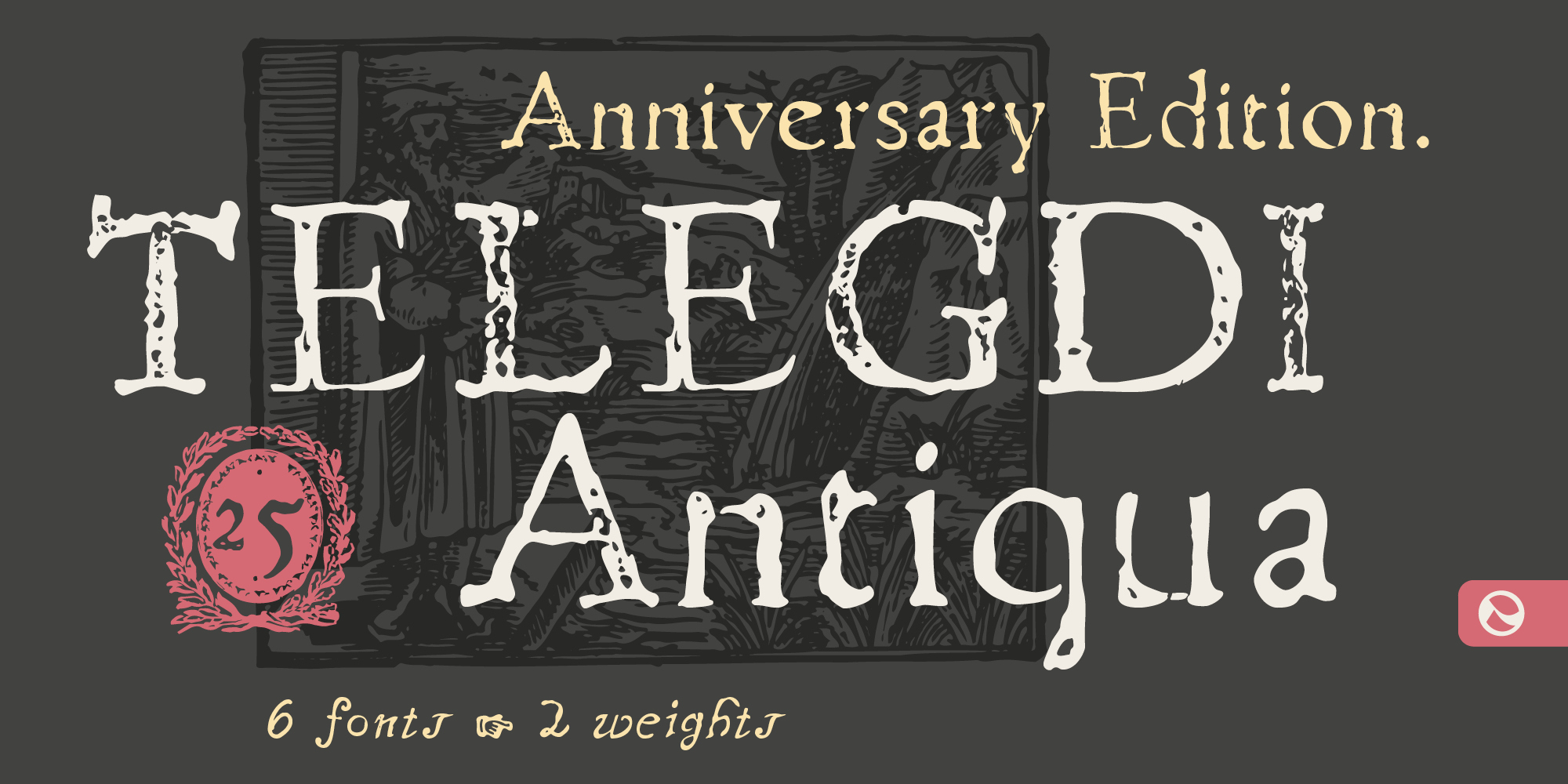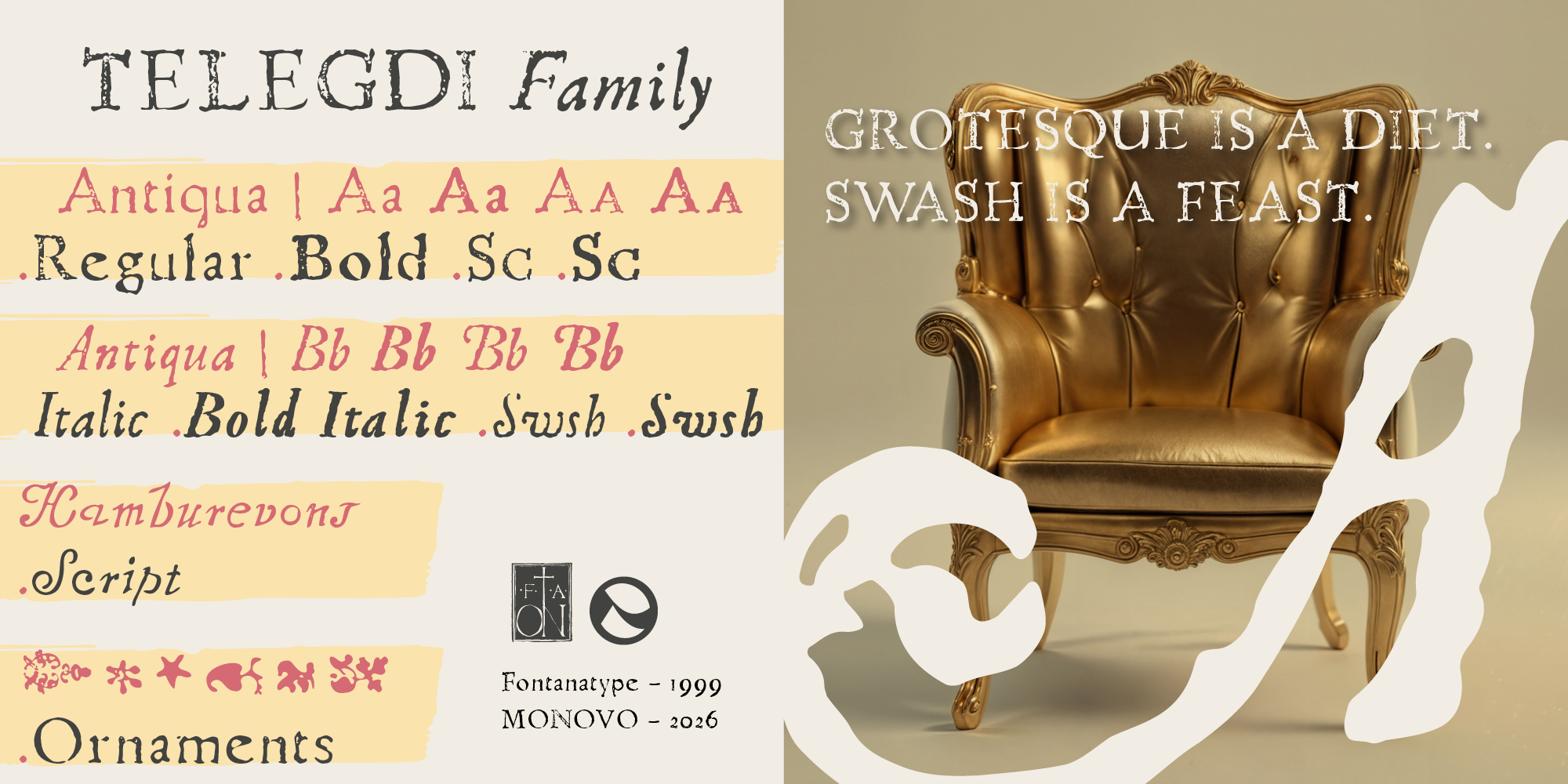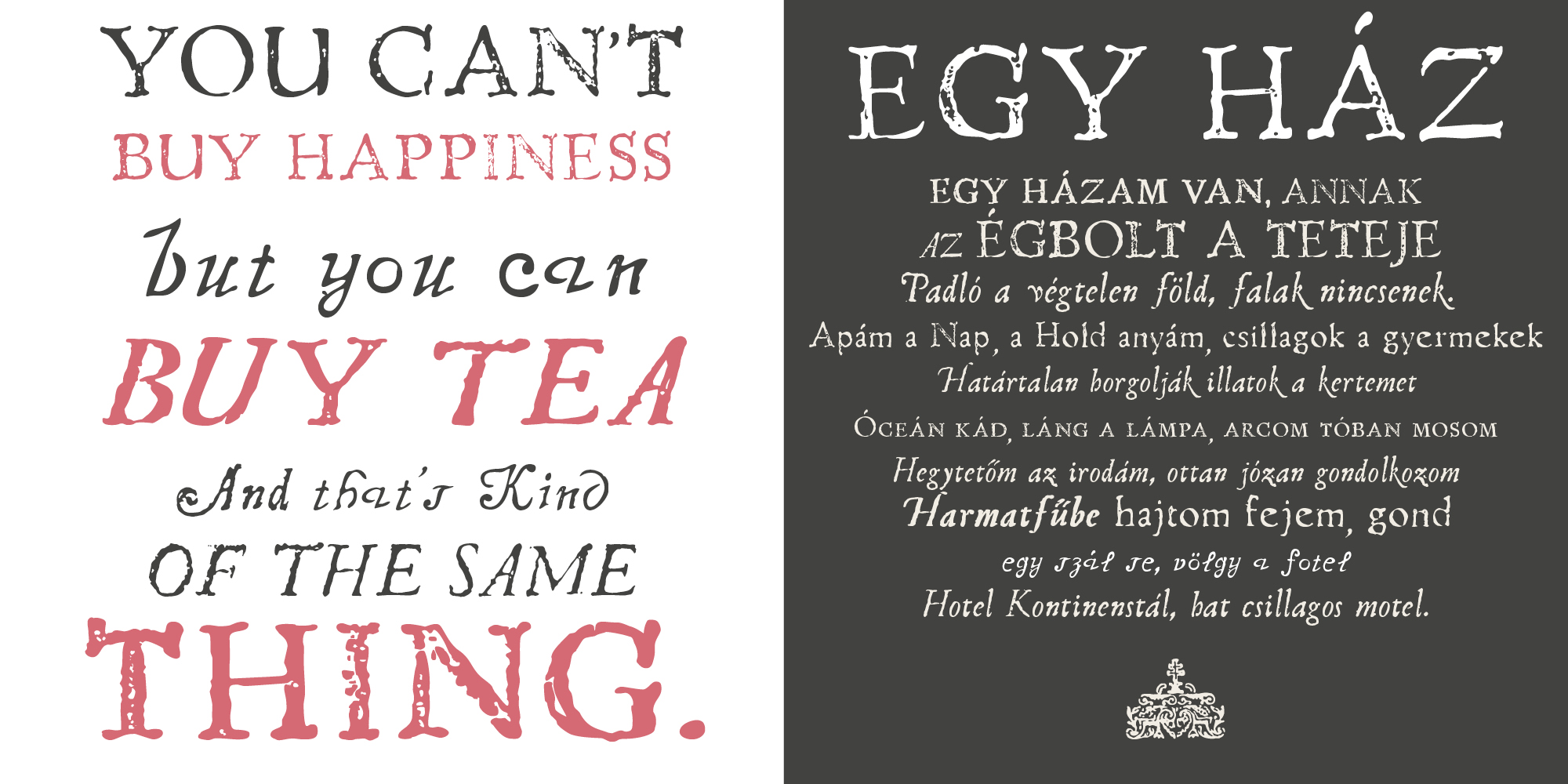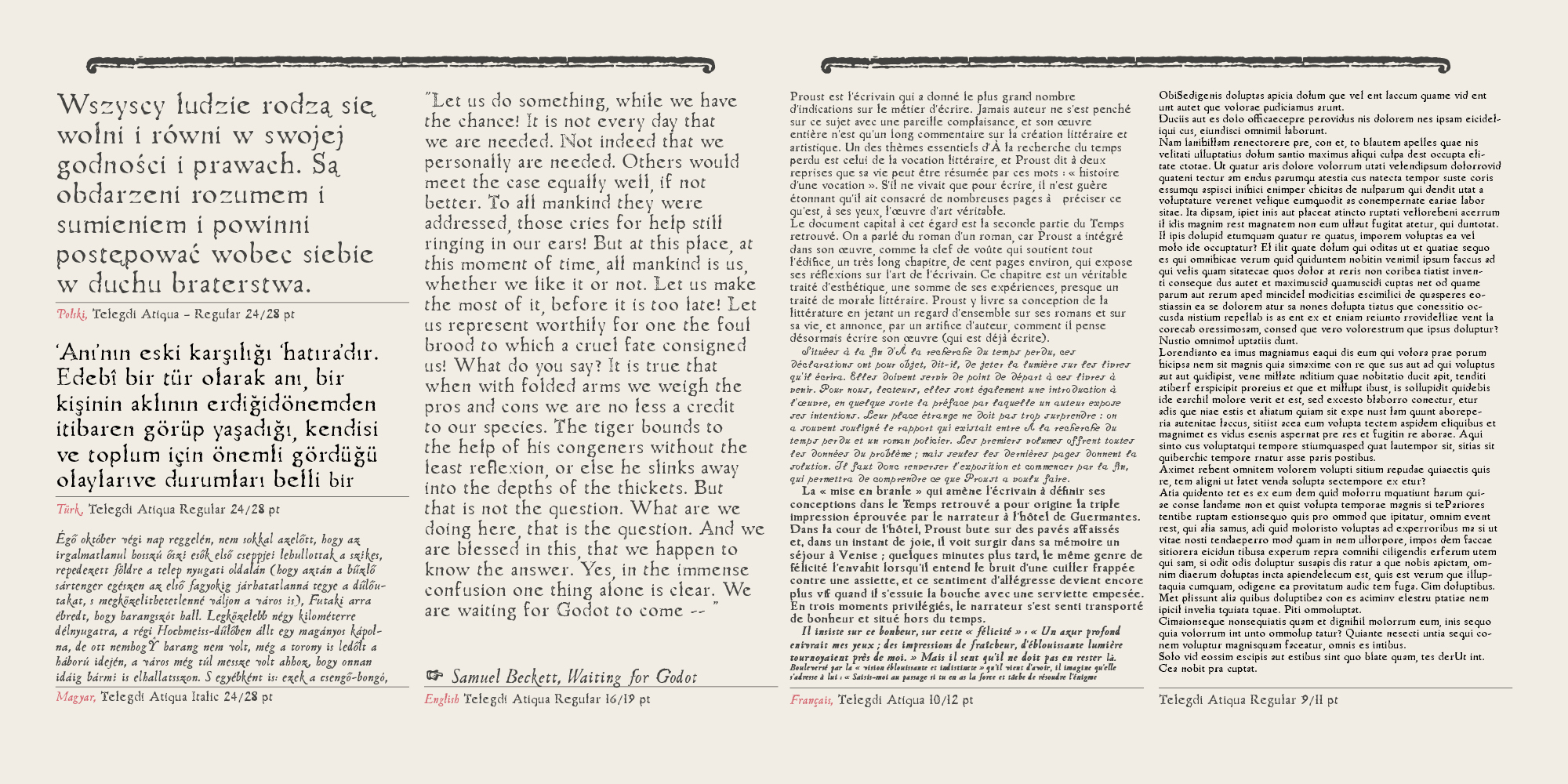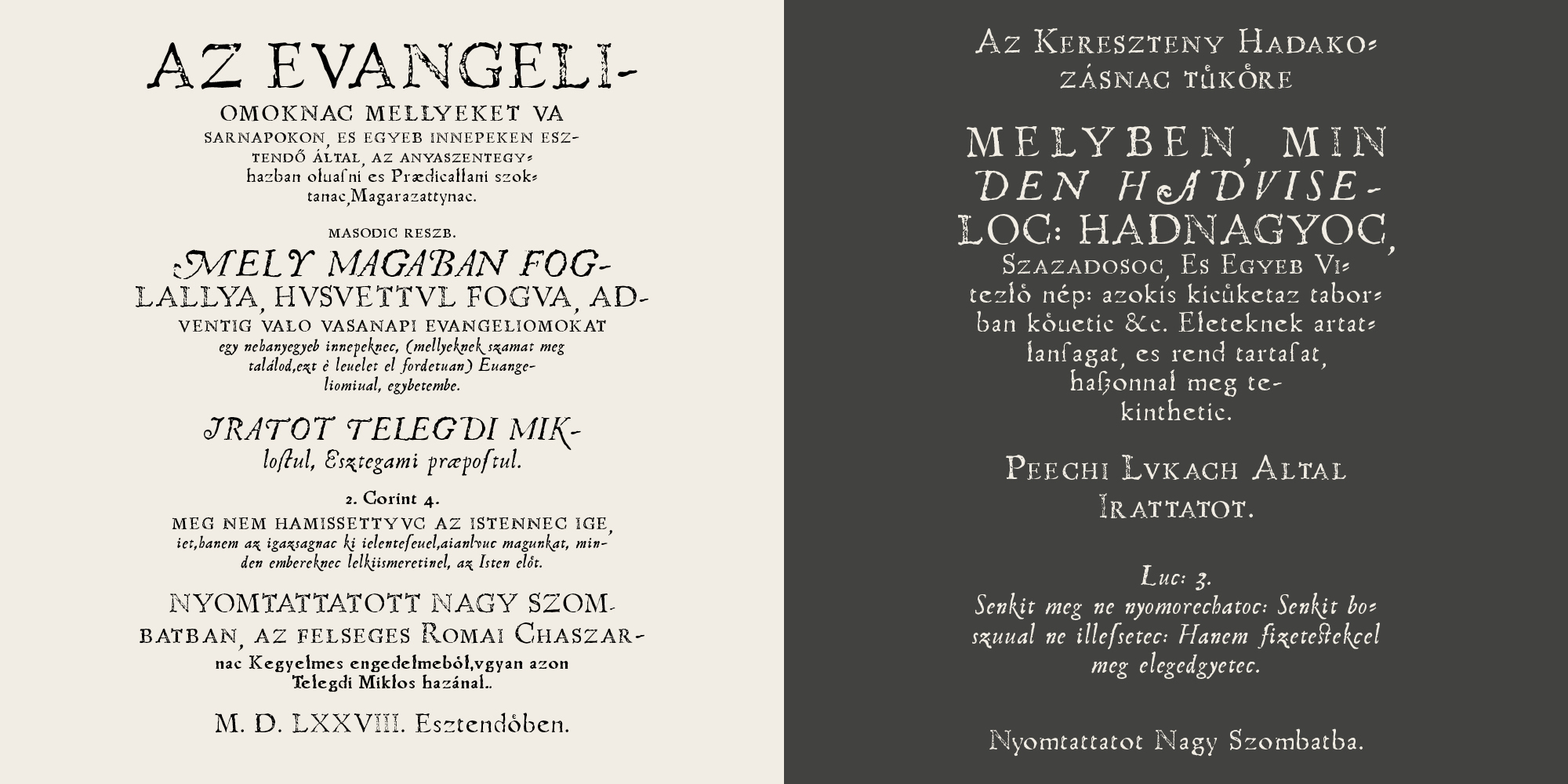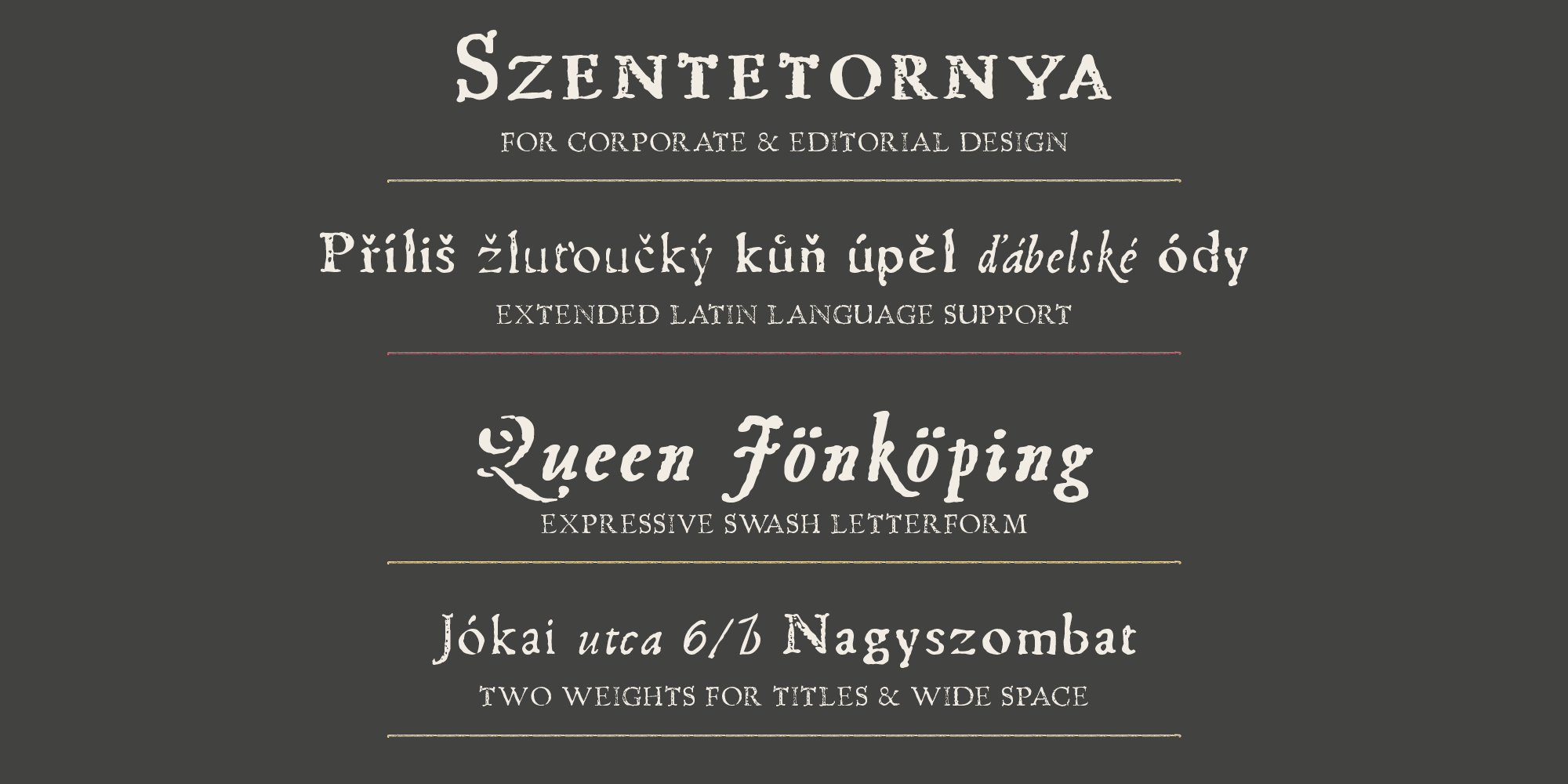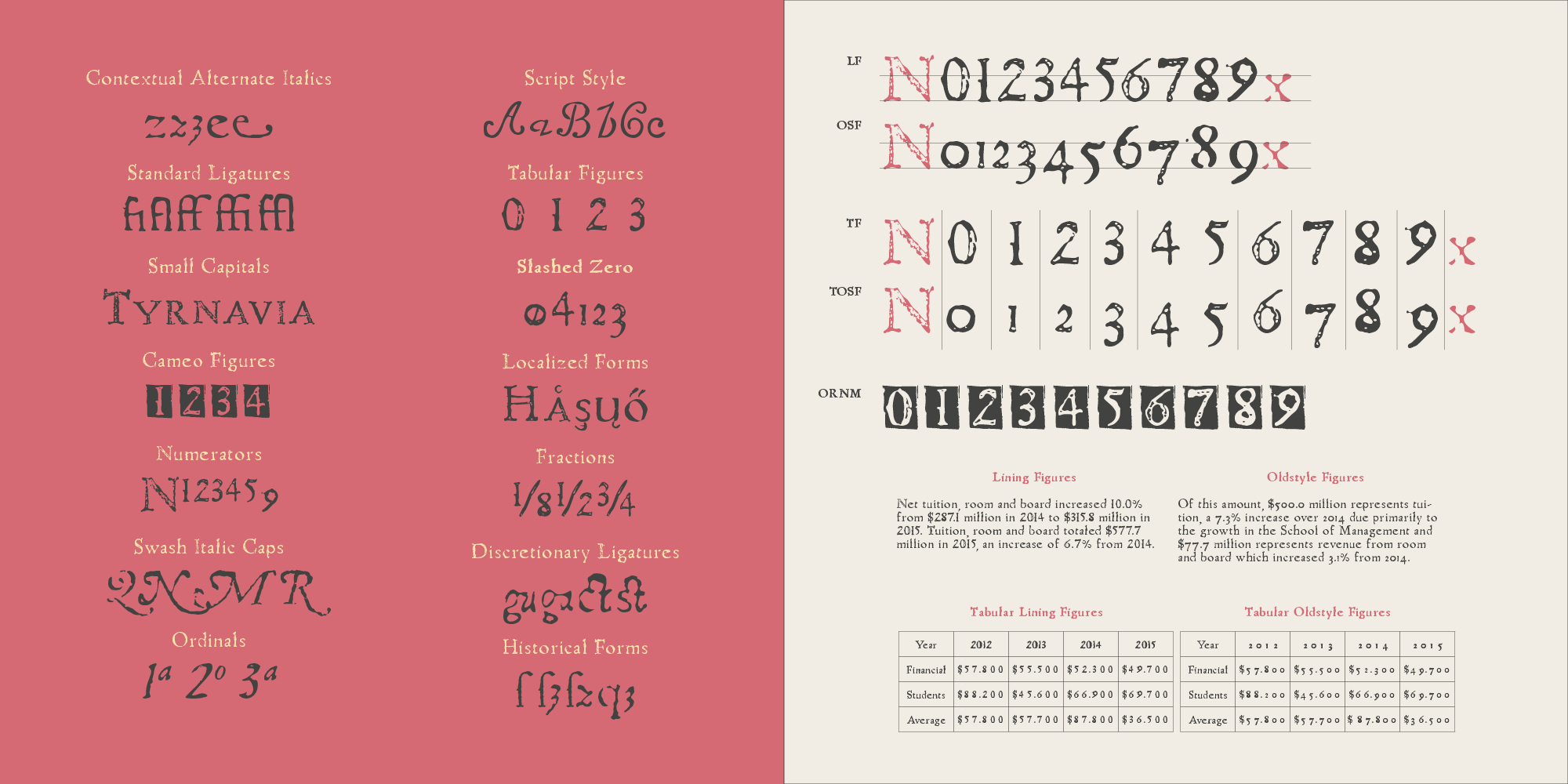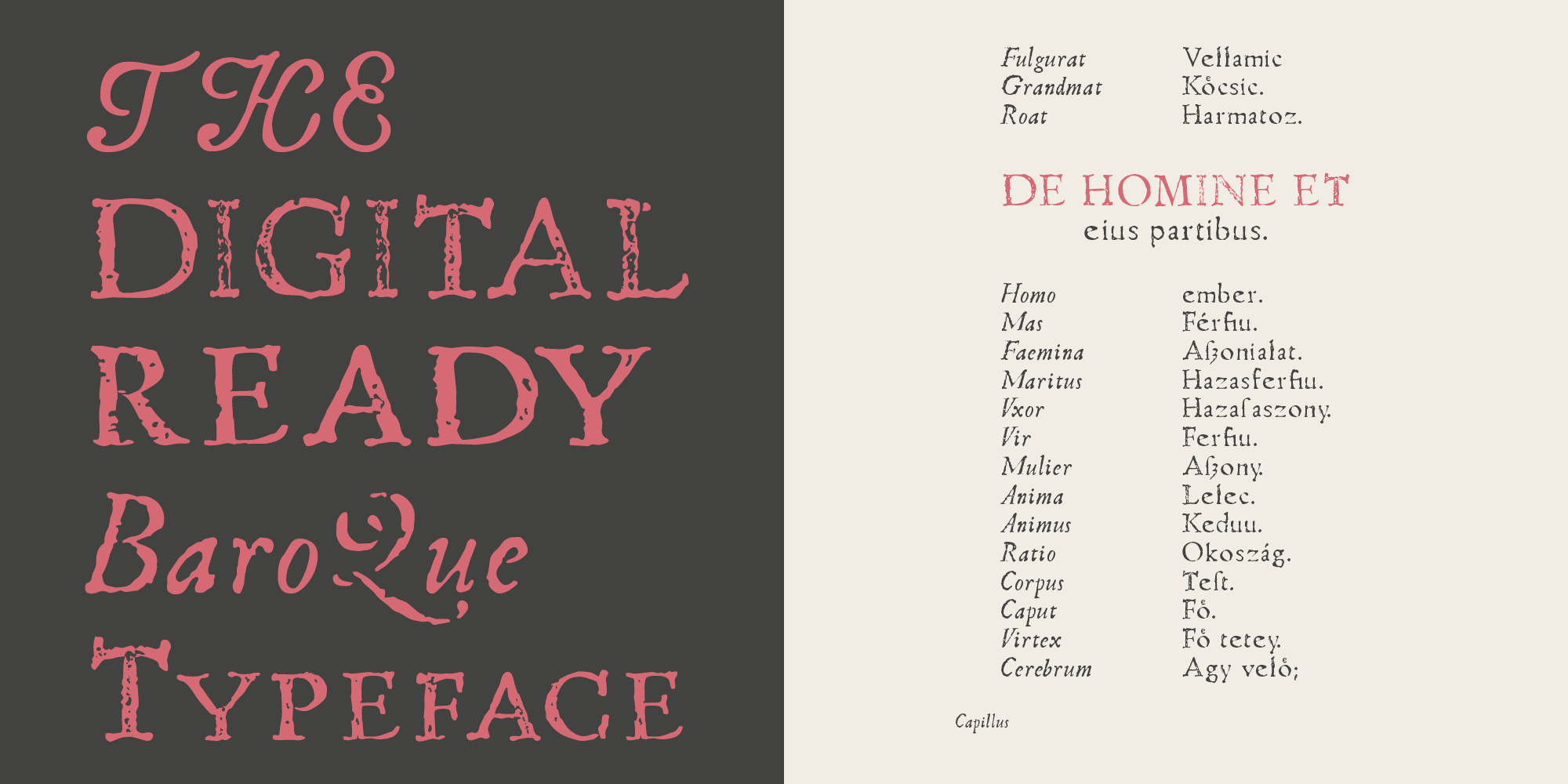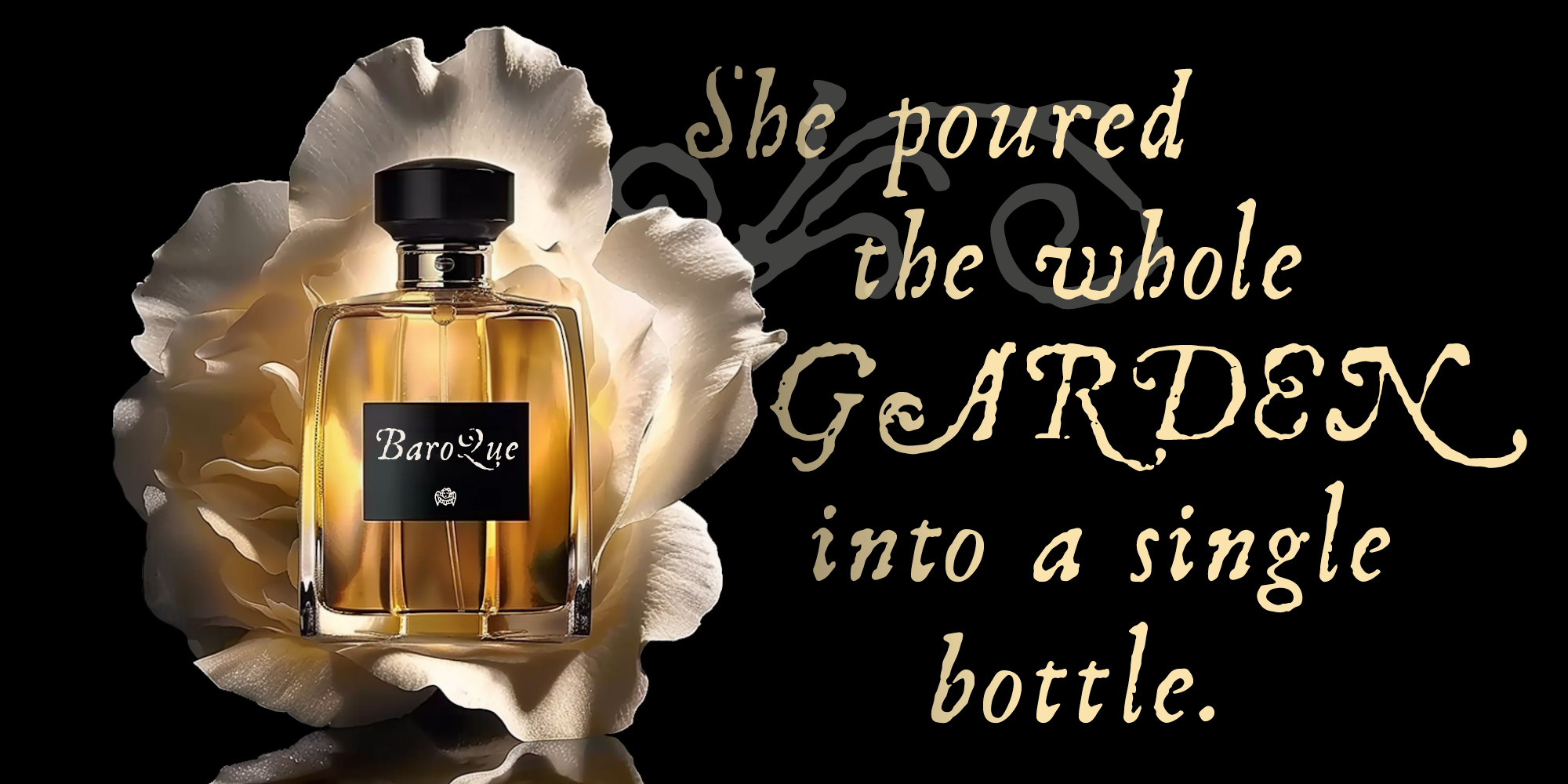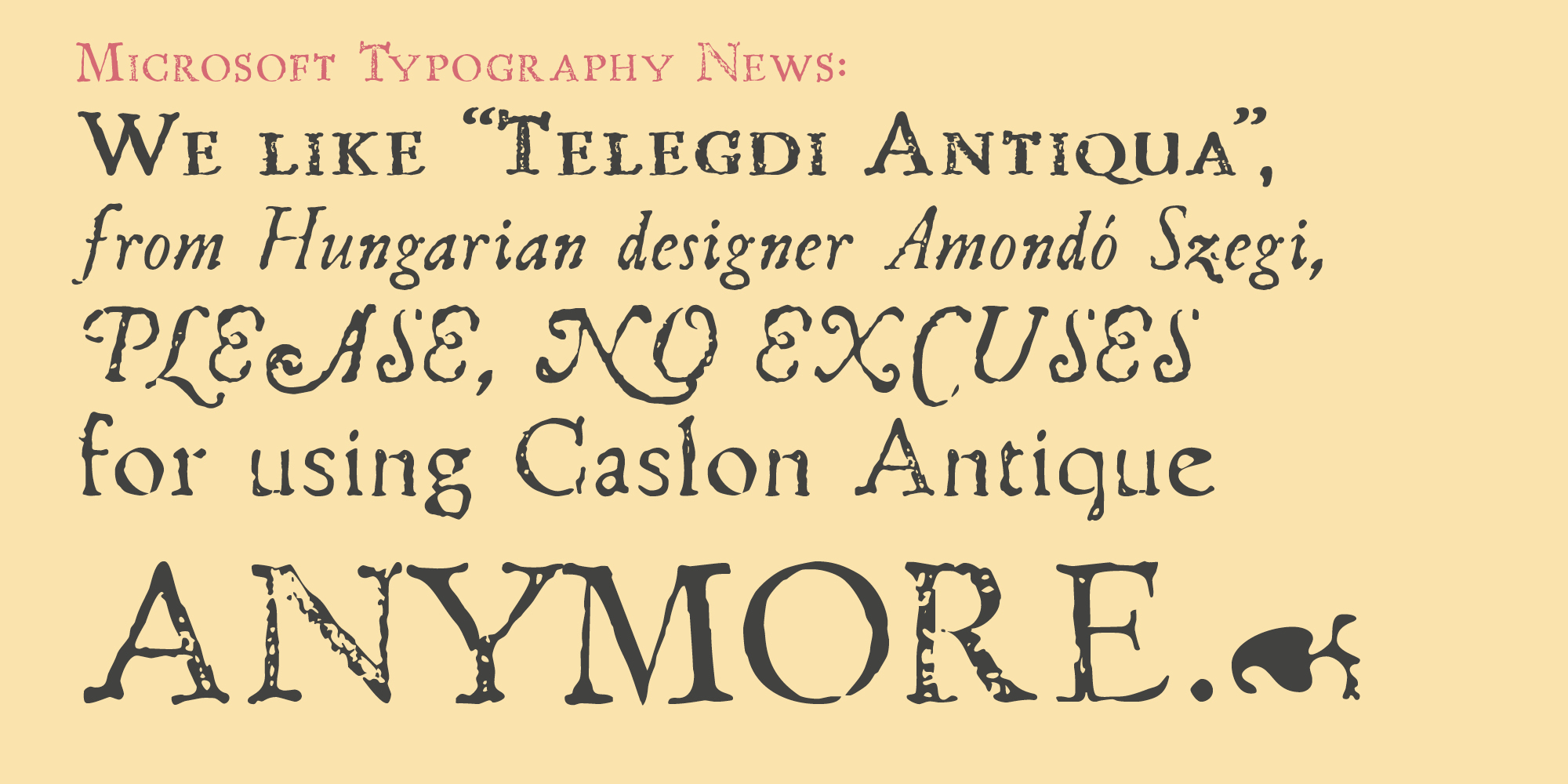
A Complete Type System.
Some typefaces are designed for a moment. Telegdi Antiqua was built for centuries.
In 1577, Abbot Nicolaus Telegdi acquired the dormant press of the Vienna Jesuits — funded by Emperor Rudolf and the Esztergom Chapter — and installed it in his own house in Nagyszombat (Trnavia). He held the title of Bishop of Pécs, but the Ottomans occupied the city. He could not go south. He went north instead and built what would become one of the most important Catholic printing centers of 16th-century Central Europe.
The typefaces that came with that press were already worn. Telegdi did not wait for new ones. He set his sermons in letters marked by decades of use — high contrast, sharp terminals, a rhythm slightly irregular from age and pressure. That decision, to embrace imperfection as authenticity, became the soul of everything that followed.
Four hundred and forty-nine years later, that soul is still legible.
Telegdi Antiqua was originally released in 1999 under Fontanatype — Hungary’s first internationally distributed independent type foundry — and distributed through the International House of Fonts, P22 Type Foundry’s curated boutique platform, where it became one of the top-selling families. It appeared in the IndieFonts compendium (P-Type Publications, 2002), in the WarCraft book series, on a Suzanne Vega album cover, and in editorial, cultural, and commercial contexts across two and a half decades.
Microsoft Typography News observed:
“We like Telegdi Antiqua from Hungarian designer Amondó Szegi — no excuses for using Caslon Antique anymore.”
In 2026, after twenty-five years in circulation, Telegdi Antiqua returns under Monovo — remastered, complete, and properly named for the first time.
The family consists of six fonts.
Telegdi Antiqua was originally published under Fontanatype (1999) and the International House of Fonts / P22 Type Foundry. The 2026 Anniversary Edition marks its return to its designer’s foundry, Monovo.
Telegdi Antiqua
Telegdi Antiqua in Regular, Italic, Bold, and Bold Italic — each carrying the full OpenType feature set: small capitals, swash capitals, standard and discretionary ligatures, historical forms including long s and long s ligatures, old-style and tabular figures, ordinals, fractions, slashed zero, contextual alternates, stylistic sets, and extended Latin coverage of approximately 600 glyphs per style.
Telegdi Script — a single-cut calligraphic companion rooted in the manuscript tradition that preceded the Nagyszombat press itself. Not a decorative addition. An extension of the same typographic world.
Telegdi Ornaments — a vocabulary of zoomorphic, heraldic, and floral forms drawn from the 16th–17th century Central European printing tradition. Period-appropriate, structurally considered, and immediately useful.